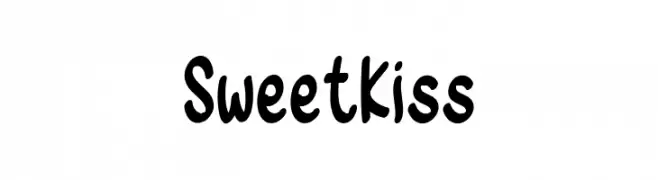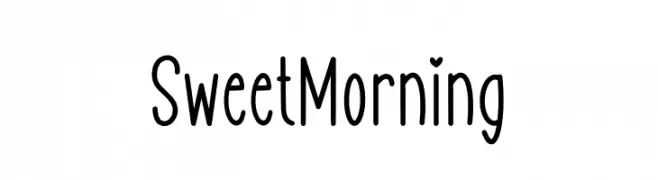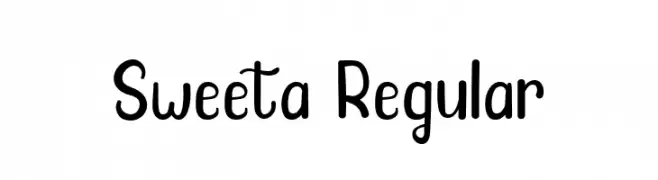
A playful, hand-drawn font with rounded, bold characters and a whimsical style.
An elegant, italic script font with flowing cursive strokes.
A bold, playful handwritten font with dynamic strokes and a casual style.
A playful, rounded font with smooth curves and a friendly appearance.
An elegant, high-contrast script font with ornate, flowing characters.
A playful, hand-drawn font with tall, narrow characters and a whimsical style.
A playful, hand-drawn font with rounded edges and a friendly vibe.
An elegant script font with flowing curves and classic flourishes.
A geometric, pixelated font with a digital and futuristic style.
A bold, dynamic script font with fluid, connected strokes and moderate contrast.